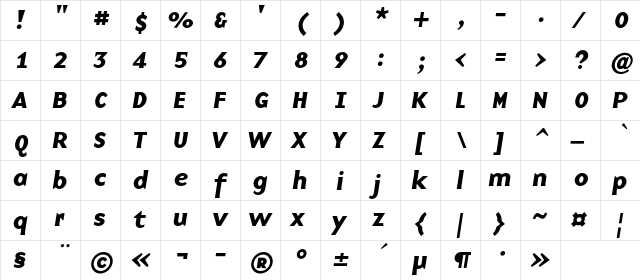
BaseNineC Bold Italic
Design Context for BaseNineC Typeface
BaseNineC is a composed and adaptable typeface that performs quietly and consistently across a wide range of design contexts. The slanted form adds forward momentum and visual energy. Its bold stroke weight gives it real presence on the page.
Pro Tip: Use BaseNineC for emphasis, pull quotes, and subheadings where its slanted energy can add rhythm to the layout.